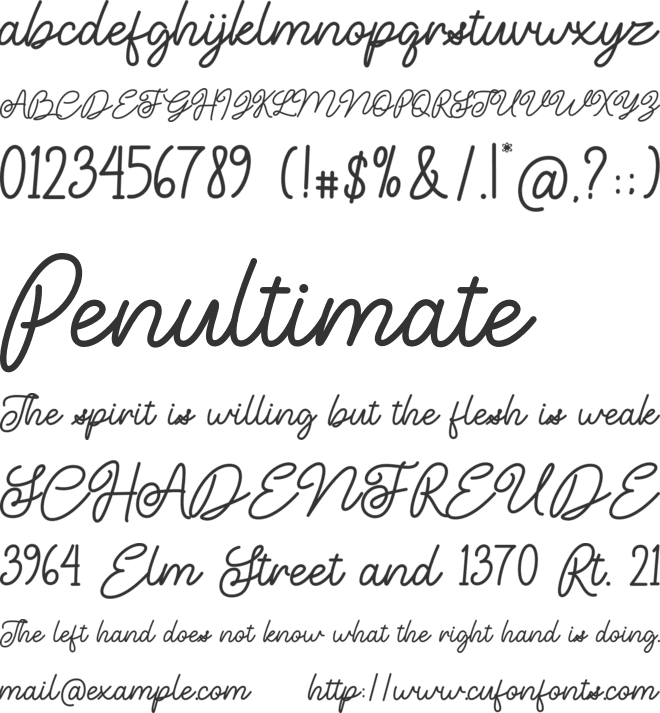
Santa Christmas Font Family
MUHAMMAD YONI
Introducing new Santa Christmas FontSanta Christmas font is a unique family font for chrismast event with star patternSanta Christmas Fonts Great for Poster, Tshirt Design, print project, social media post, and moreyou will get:- Santa Christmas Regular OTF / WOFF- Santa Christmas Star OTF / WOFF- Santa Christmas Display OTF / WOFFBuy and Complete your Christmas design with the Santa Christmas Font familyFollow me to get our latest font productHave a nice dayYonTypeStudioCo.Get Comercial Use Here : https://fontbundles.net/yontypestudioco/974818-santa-christmas-a-cute-holiday-fontSubscription Here : https://www.creativefabrica.com/product/santa-christmas-2/ref/235915/